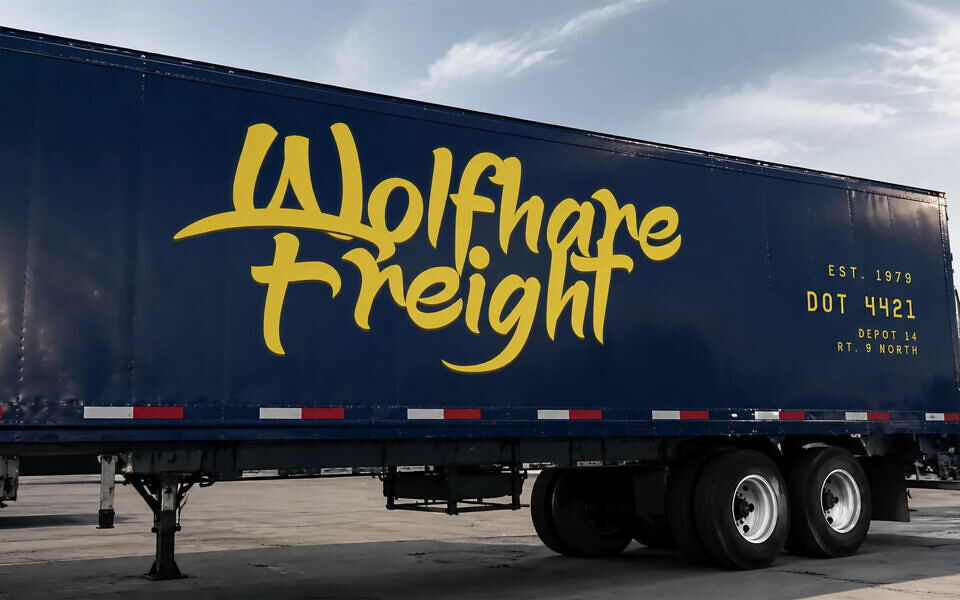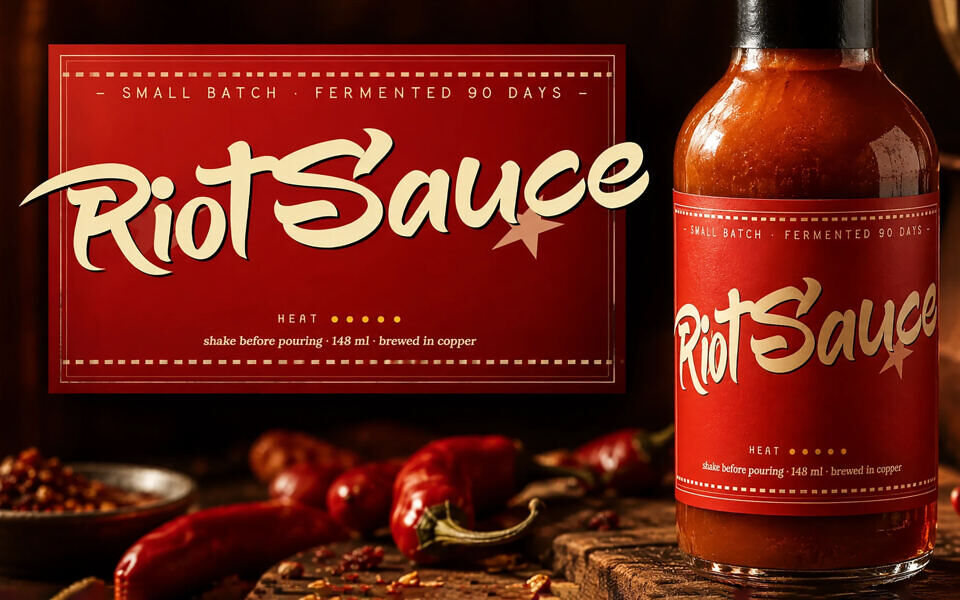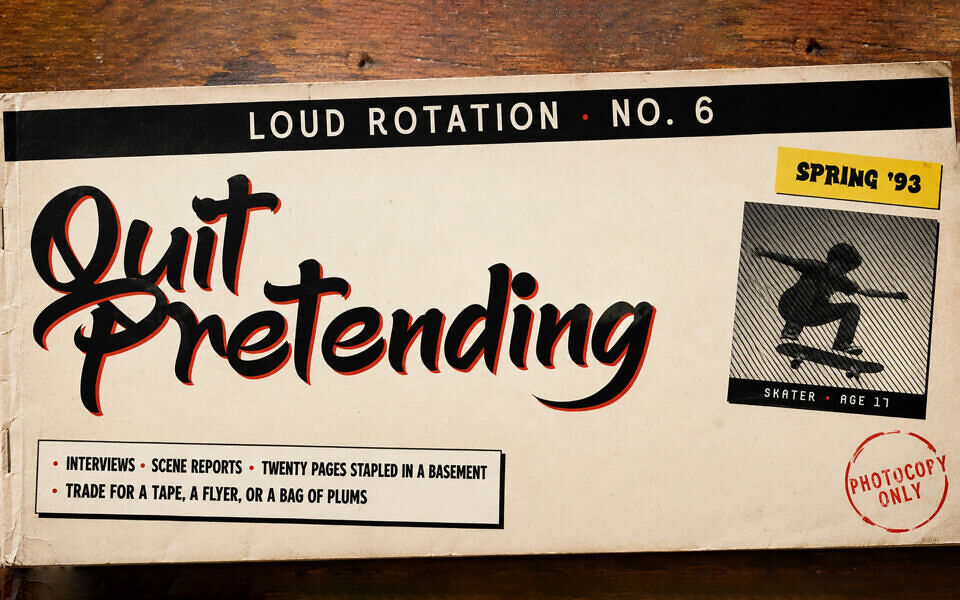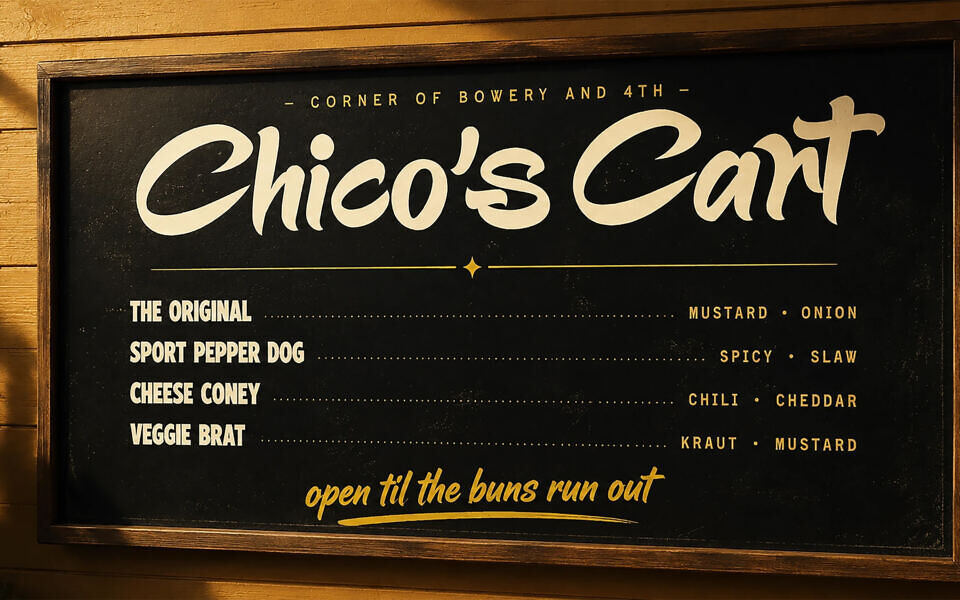
Mitshuka Font
Mitshuka is a bold tag-brush hybrid with quick exit strokes and a strong forward lean. The lowercase has the rounded belly of a chisel-tip brush; the caps run taller and looser, with little hooks that flick out toward the next letter.
Strokes shift from a heavy body to thin pulled tails, the way a hand actually moves under speed. The slant is consistent but never strict — letters lean into each other rather than march in line.